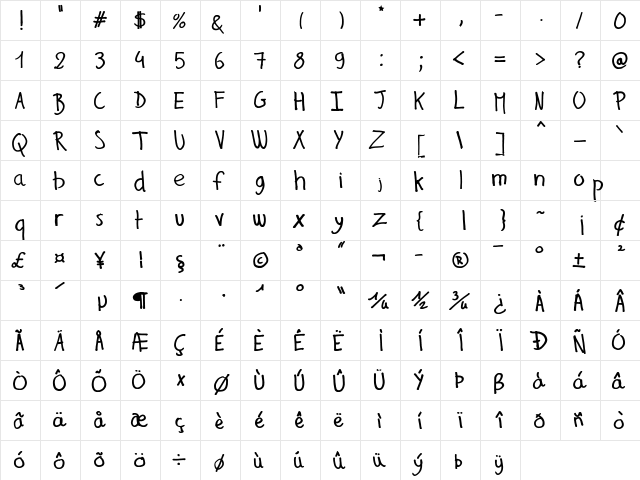
Gilles' Comic Font Regular
Design Context for Gilles' Comic Font Typeface
Gilles' Comic Font has an approachable, lighthearted character — its loose, expressive forms are well-suited to children's content, casual branding, and fun-first design.
Font Pairing: Pairs well with a rounded or humanist sans for body copy, maintaining the friendly tone without relying on Gilles' Comic Font to carry extended reading.
Pro Tip: Use Gilles' Comic Font at larger display sizes where its expressive character can land. Pair with a clean, simple sans for body copy to maintain readability.